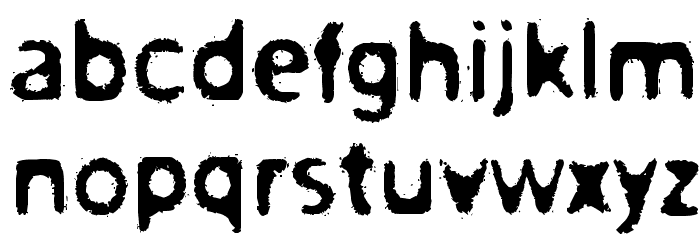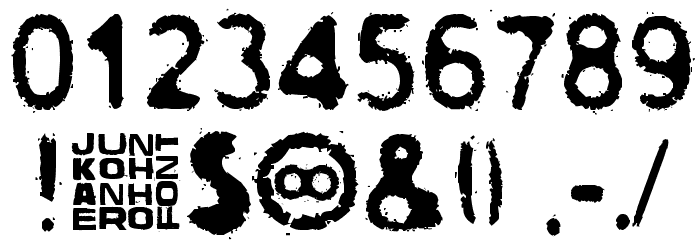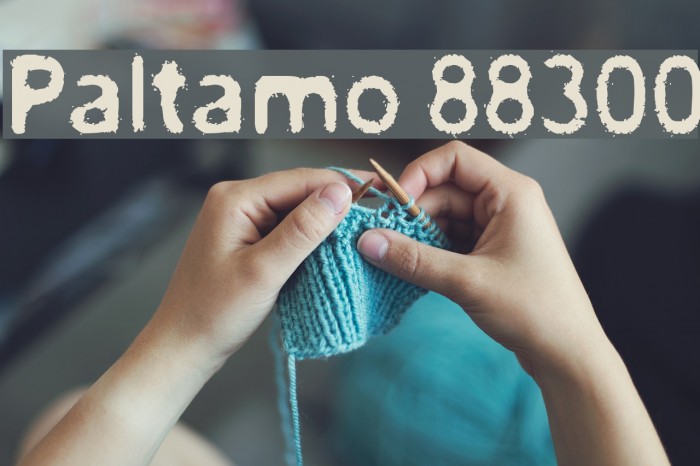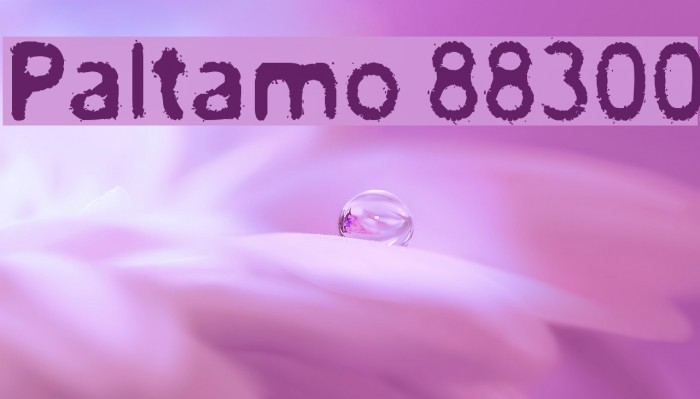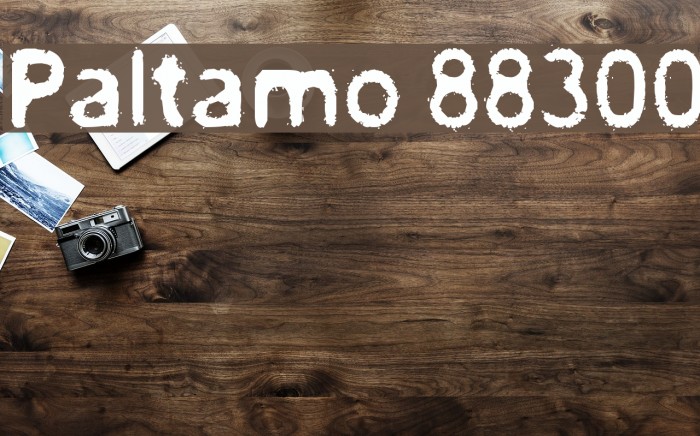
Paltamo 88300 Font
This font exhibits a rugged, distressed style with a hand-crafted appearance. Each character appears to have been eroded or worn, giving it a unique, organic texture. The uppercase and lowercase letters maintain a consistent height, while the numbers and special characters follow the same distressed aesthetic. The overall design suggests a sense of rawness and authenticity, making it suitable for projects that require a bold, eye-catching display. The font's irregular edges and varying stroke thicknesses contribute to its distinctive look, making it ideal for artistic and unconventional uses.
A rugged, distressed font with an organic, hand-crafted appearance.
- Font: Paltamo 88300
- Proposed Projects: Ideal for posters, album covers, branding for edgy or alternative products, and any design requiring a bold, artistic touch.